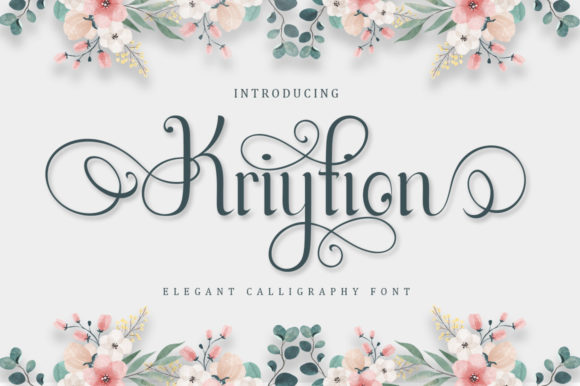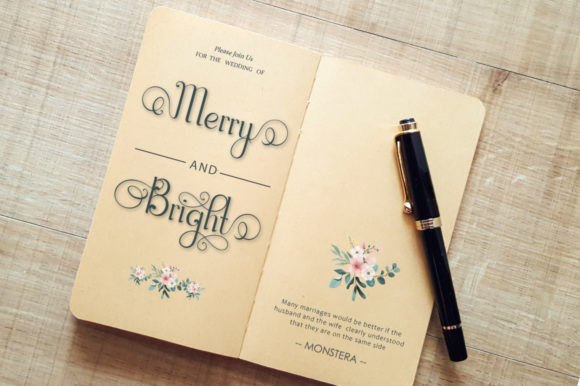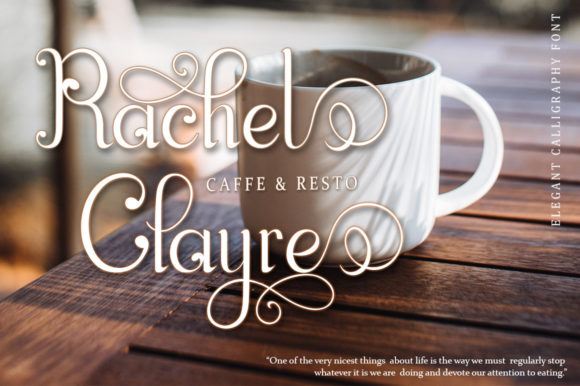
About Kriytion Font
Kriytion is a lovely and highly detailed script font that exudes elegance and class. This font was particularly crafted for those who need a beautiful and refreshing look to their designs.
Kriytion is PUA encoded which means you can access all glyphs and swashes with ease!